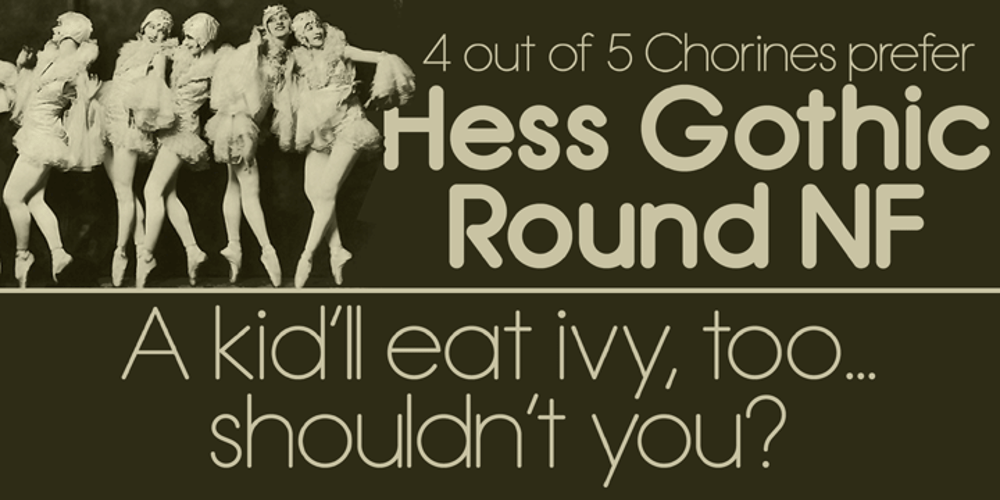
Hess Gothic Round NF
Hess Gothic Round NF font
Hess Gothic Round NF Font Family was designed by Sol Hess, Herb Lubalin, Paul Renner, Nick Curtis and published by Nick’s Fonts. Hess Gothic Round NF contains 4 styles and family package options. The family tree of this friendly face runs deep. Its primary inspiration is Twentieth Century, designed by Saul Hess as a monoline version of Paul Renner’s Futura. The design was reinterpreted by Herb Lubalin as Avant Garde in the 1970s. This version softens the harsh geometry of the original designs with rounded line endings: the result is a warm, inviting face that is elegant, confident and inviting. All versions of this font include the Unicode 1250 Central European character set in addition to the standard Unicode 1252 Latin set.